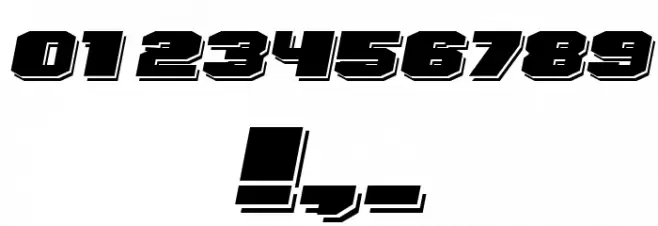
Magia Shadow Italic Font
Magia Shadow Italic Description
This bold, italicized font features a striking shadow effect that gives each character a three-dimensional appearance. The uppercase letters are robust and angular, with a consistent slant that adds a dynamic feel. The numbers and special characters follow the same bold and shadowed style, ensuring uniformity across all elements. The font's design is modern and eye-catching, making it ideal for projects that require a strong visual impact. Its unique style is perfect for creating standout headlines or logos that demand attention.
A bold, italicized font with a striking shadow effect for a dynamic, modern look from Uncategorized fonts.
- Proposed Projects: Ideal for creating eye-catching headlines, logos, posters, and branding materials.